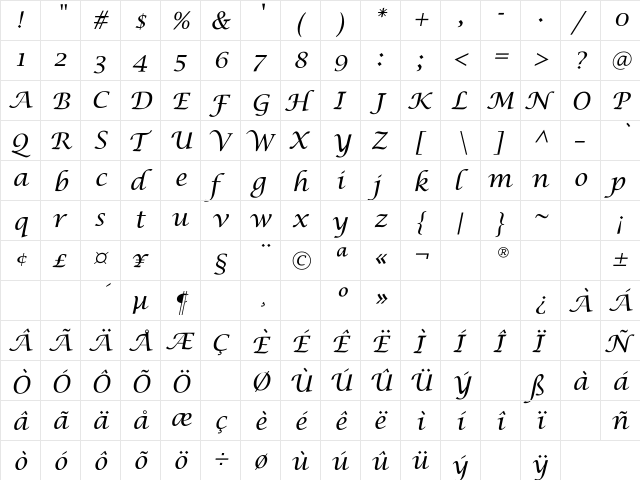
Lucerne Italic Regular
Design Context for Lucerne Italic Typeface
Lucerne Italic is a composed and adaptable typeface that performs quietly and consistently across a wide range of design contexts. The dynamic lean of this cut emphasises speed and emphasis in any layout.
Pro Tip: Try Lucerne Italic for annotation and caption copy alongside an upright companion — the contrast in angle creates a dynamic but ordered typographic system.